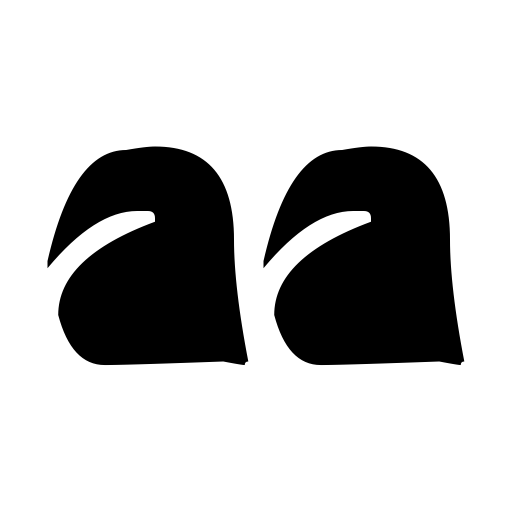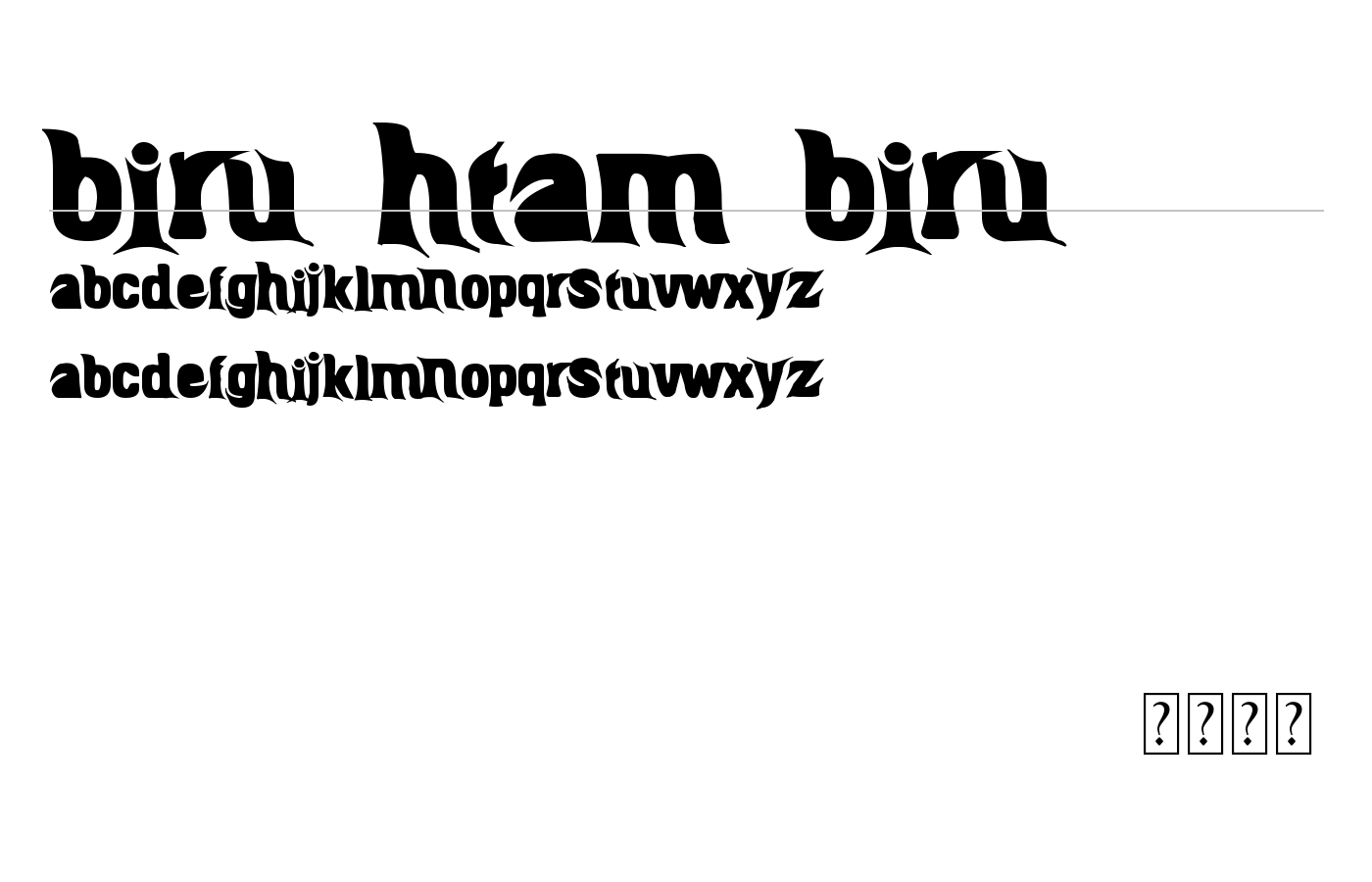
BIRU-HTAM-BIRU is a bold, decorative serif font with a strong graphic presence and unique angular serifs that give it an almost gothic or fantasy feel. Its condensed letterforms and high contrast between thick and thin strokes make it perfect for eye-catching headlines or branding that aims to convey creativity and a dramatic flair. This font works well for posters, logos, and projects looking to make a striking visual impact with a distinctive personality.
BIRU-HTAM-BIRU Font
About BIRU-HTAM-BIRU Font